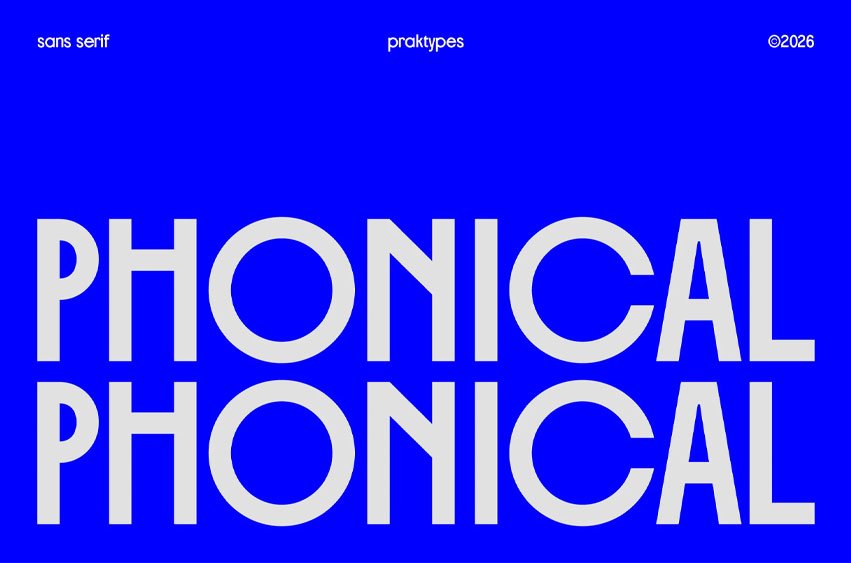
Phonical Font is a premium display typeface designed to strike a balance between high-reaching elegance and bold geometric precision. Inspired by Minimalism, this font features a unique rhythmic contrast: towering, slim verticality paired with perfectly circular forms in characters such as ‘O’ ,’C’,and ‘G’
With its solid stroke weight and commanding presence, PRAK Phonical is engineered for designers who need a headline that feels both authoritative and sophisticated. Its architectural structure ensures that every word makes a definitive statement, making it the perfect choice for modern branding and high-end editorial design.
Key Highlights:
- Tall & Commanding: A condensed silhouette that adds height and prestige to any layout.
- Geometric Perfection: Flawlessly round curves that provide a satisfying visual contrast to its narrow stems.
- Bold Authority: A thick, consistent weight that ensures maximum impact and professional clarity.
- Versatile Modernism: Clean, sans-serif lines that fit seamlessly into contemporary and minimalist aesthetics.
Perfect For:
- Luxury Branding: Creating high-end logos and visual identities.
- Editorial Design: Commanding headlines for fashion or architecture magazines.
- Poster Art: Bold typography for cinematic and exhibition graphics.
- Premium Packaging: Giving products a sophisticated, modern edge.
- Digital Content: Striking social media headers and avant-garde web design.
- Character Set: Full Uppercase Alphabet, Numbers, and Essential Punctuation. “Tall, Bold, and Perfectly Round.”